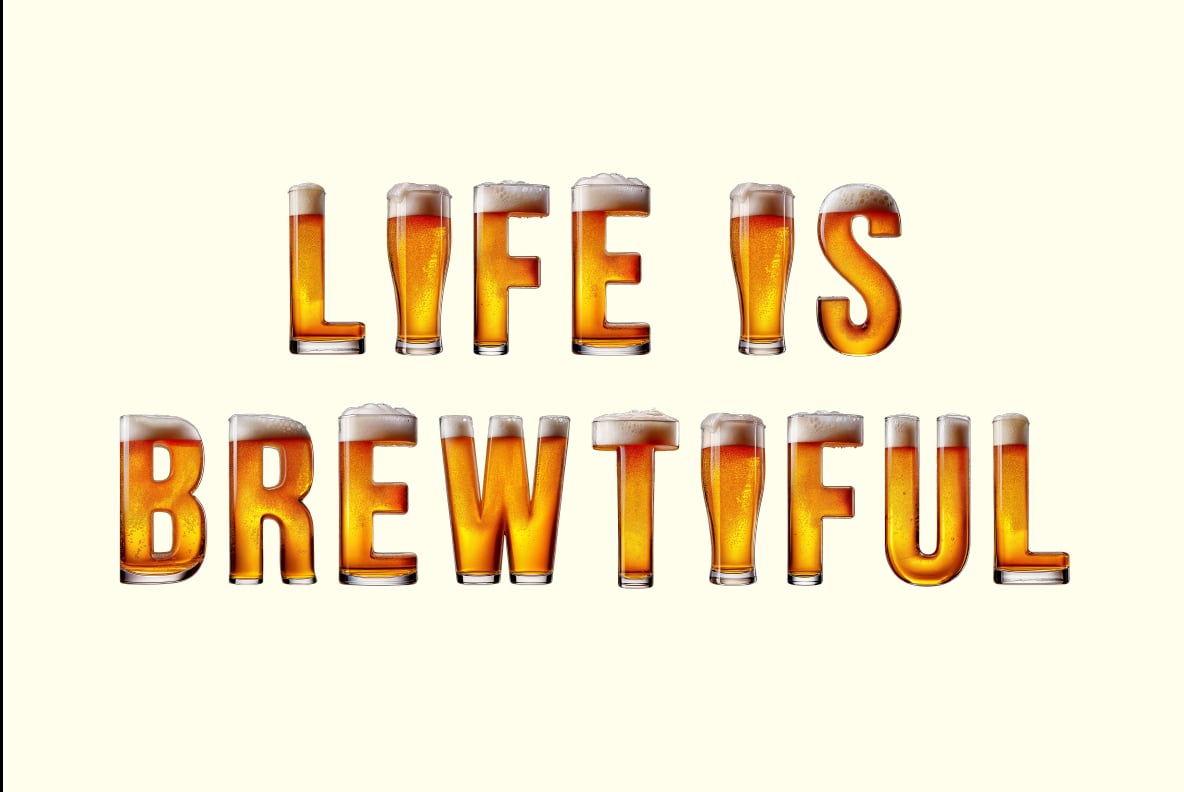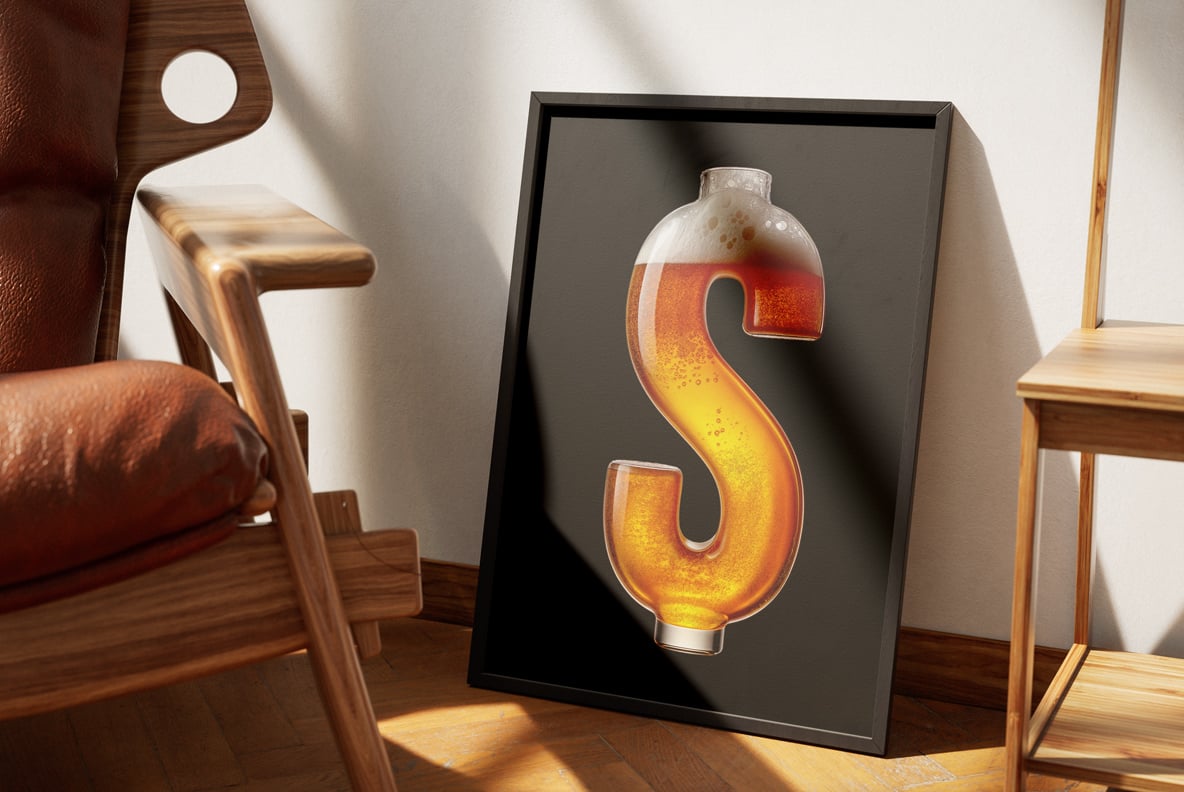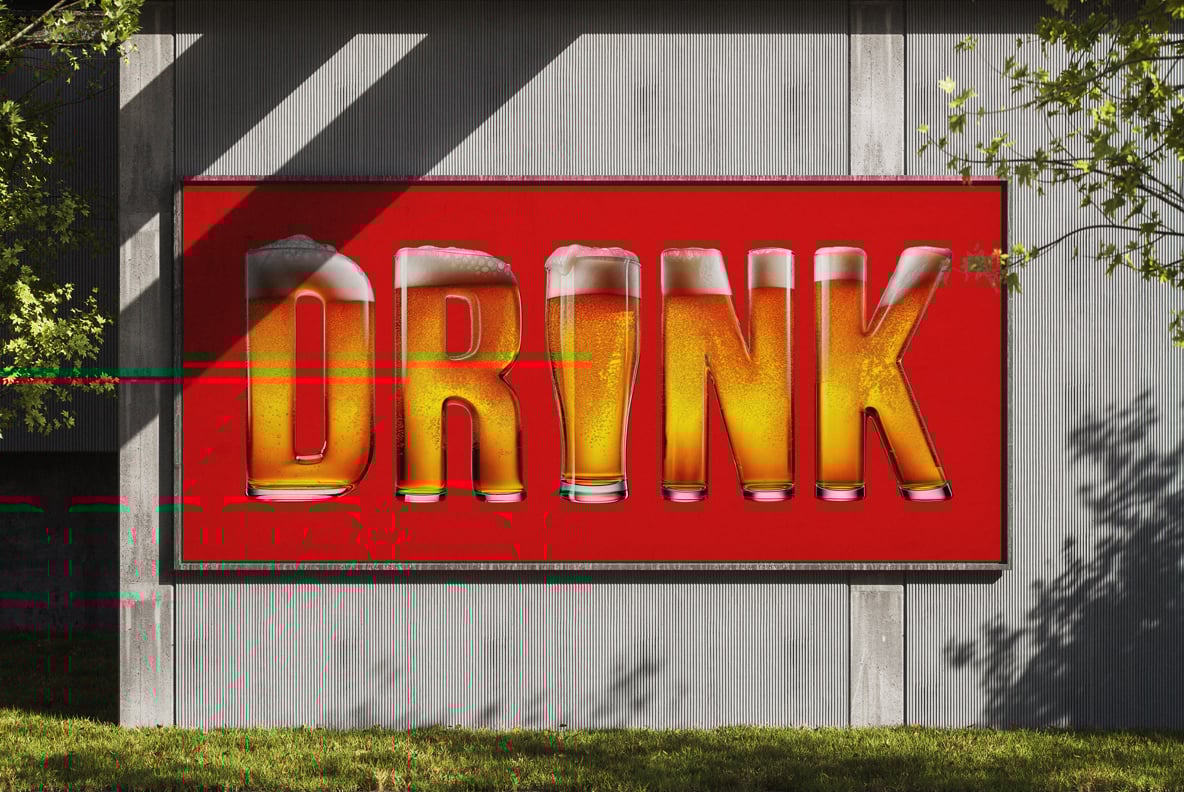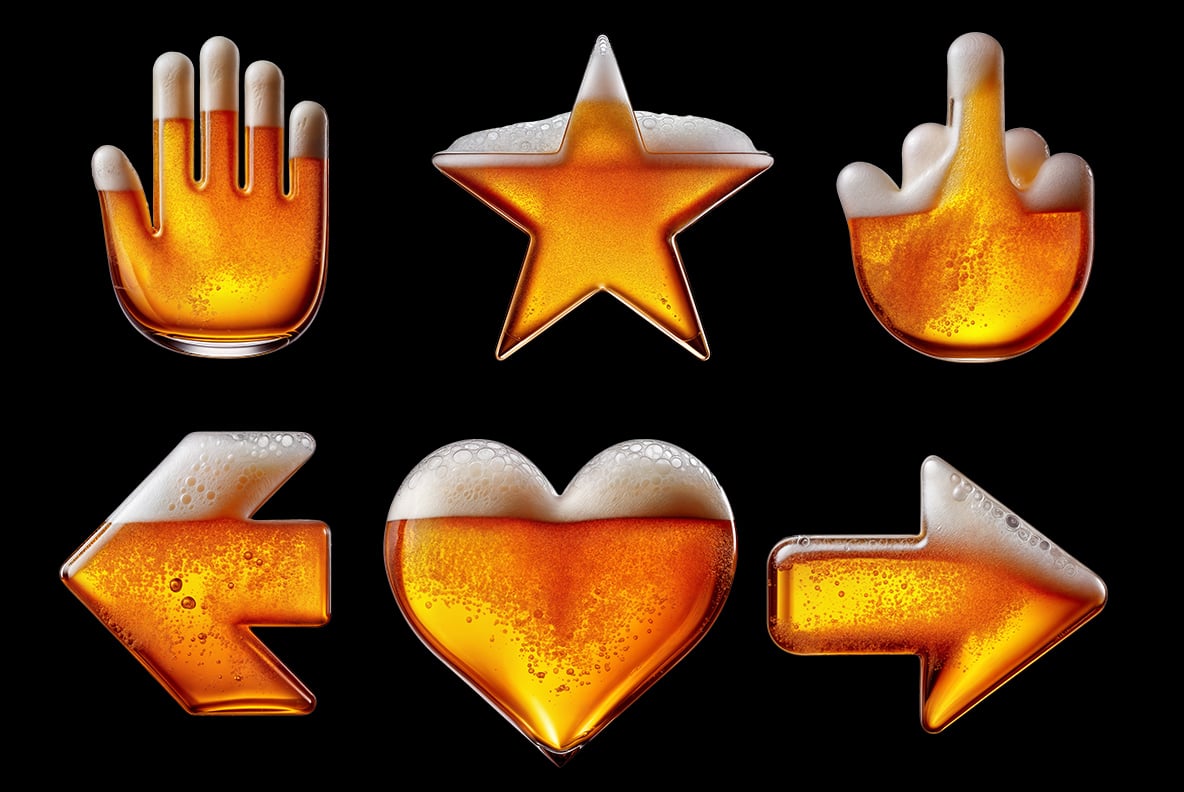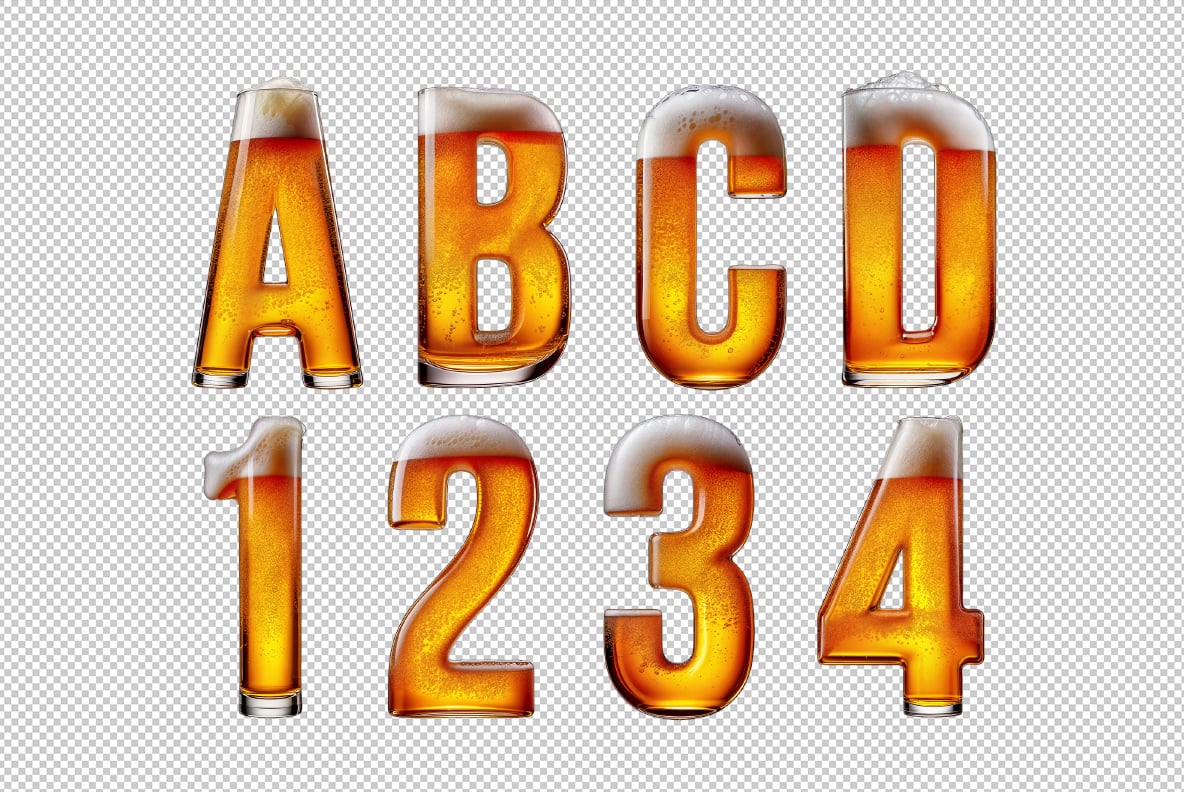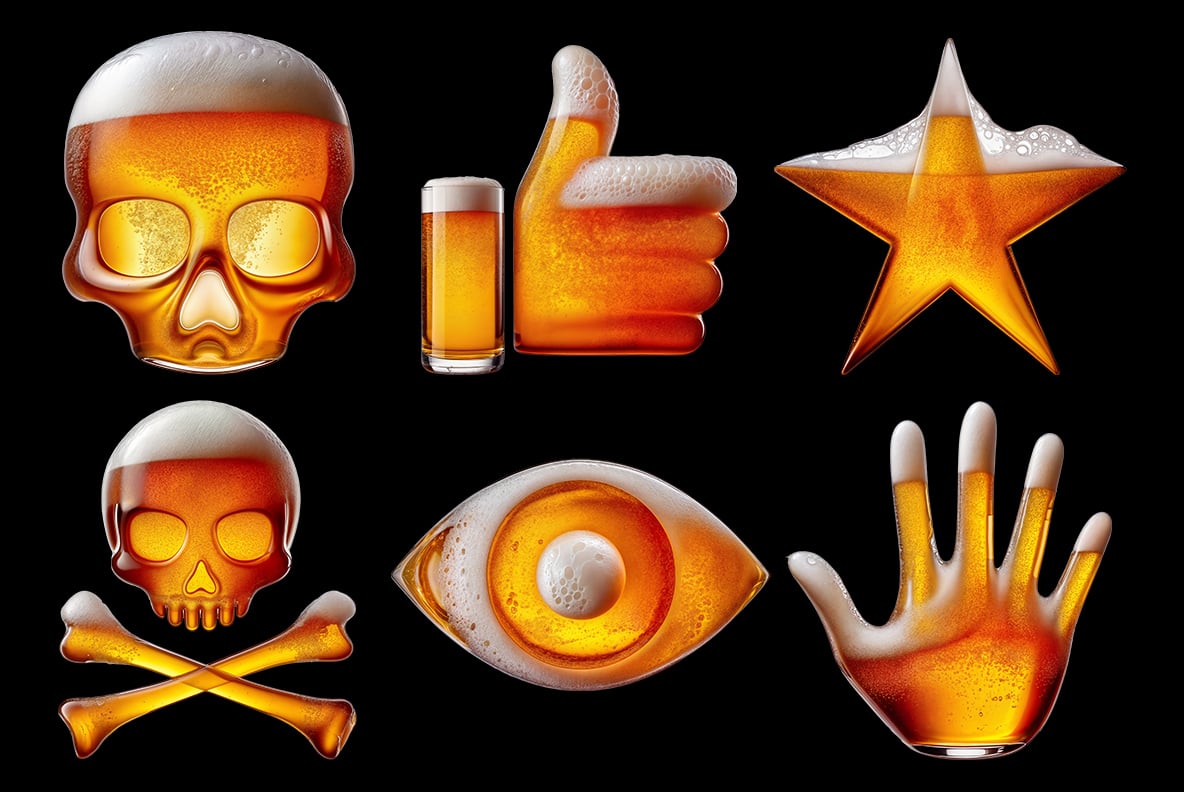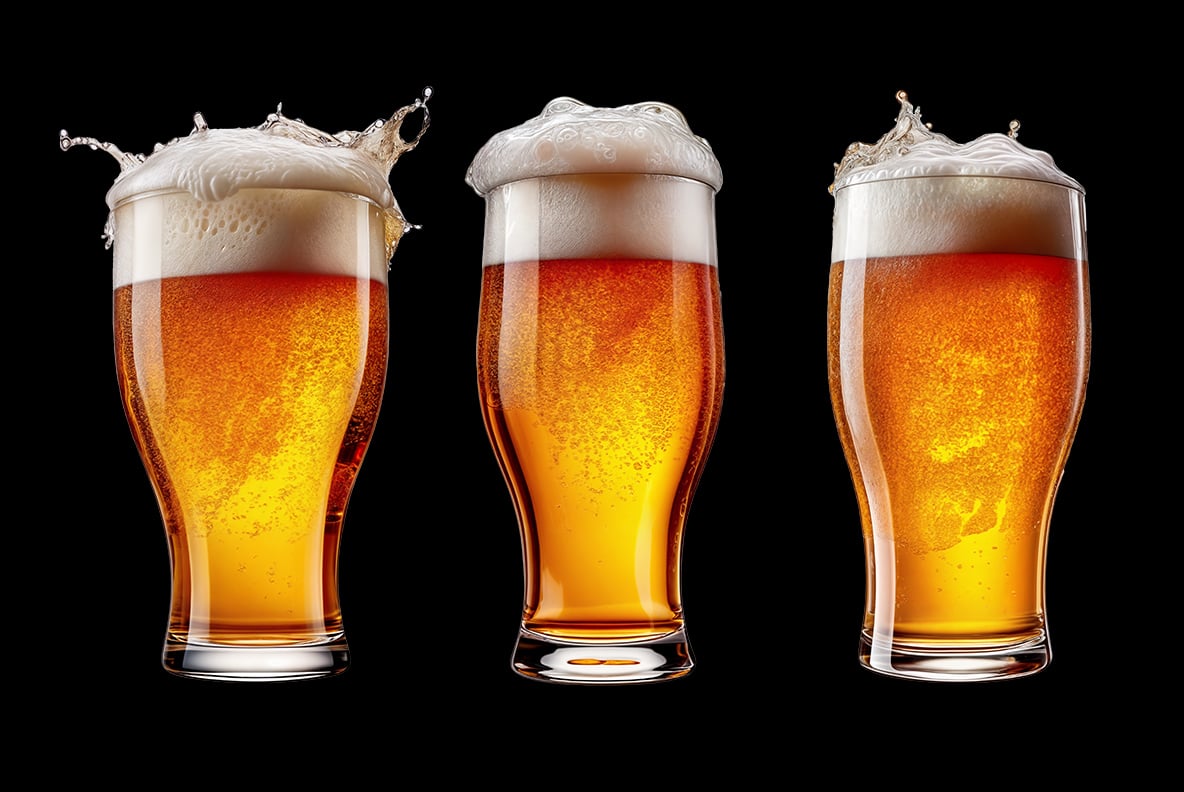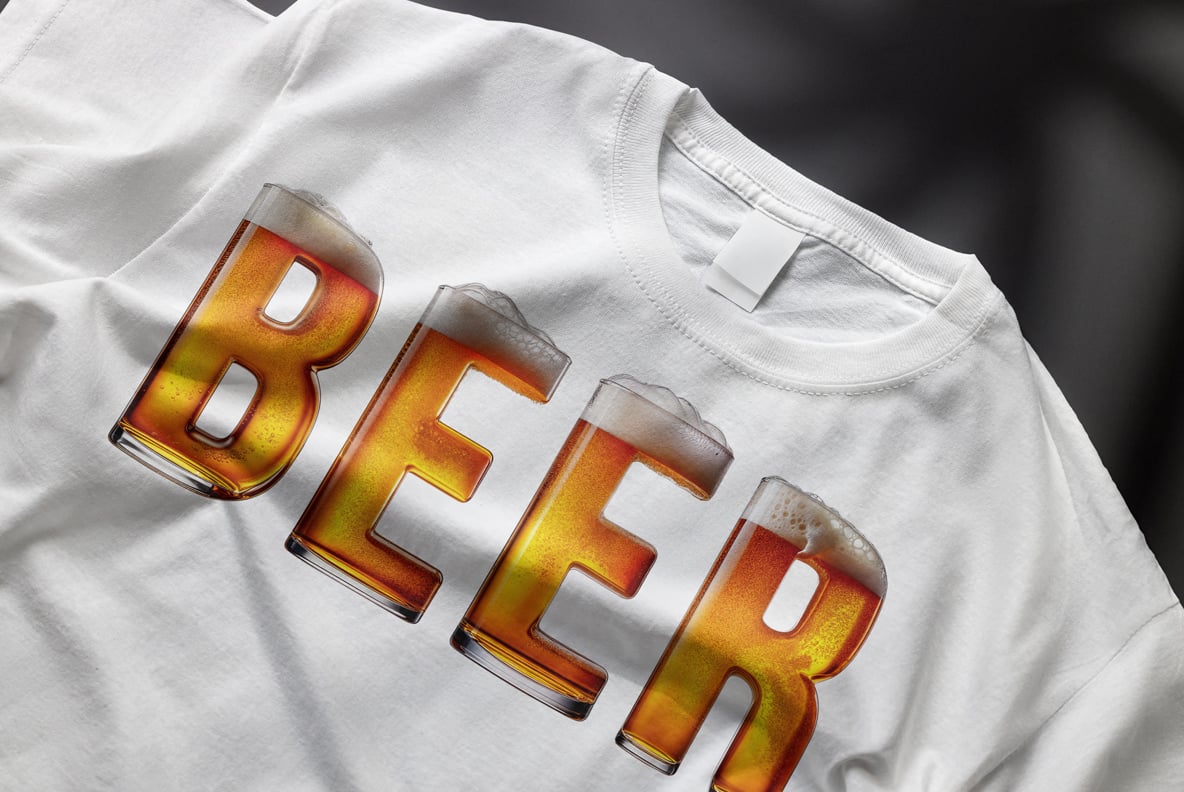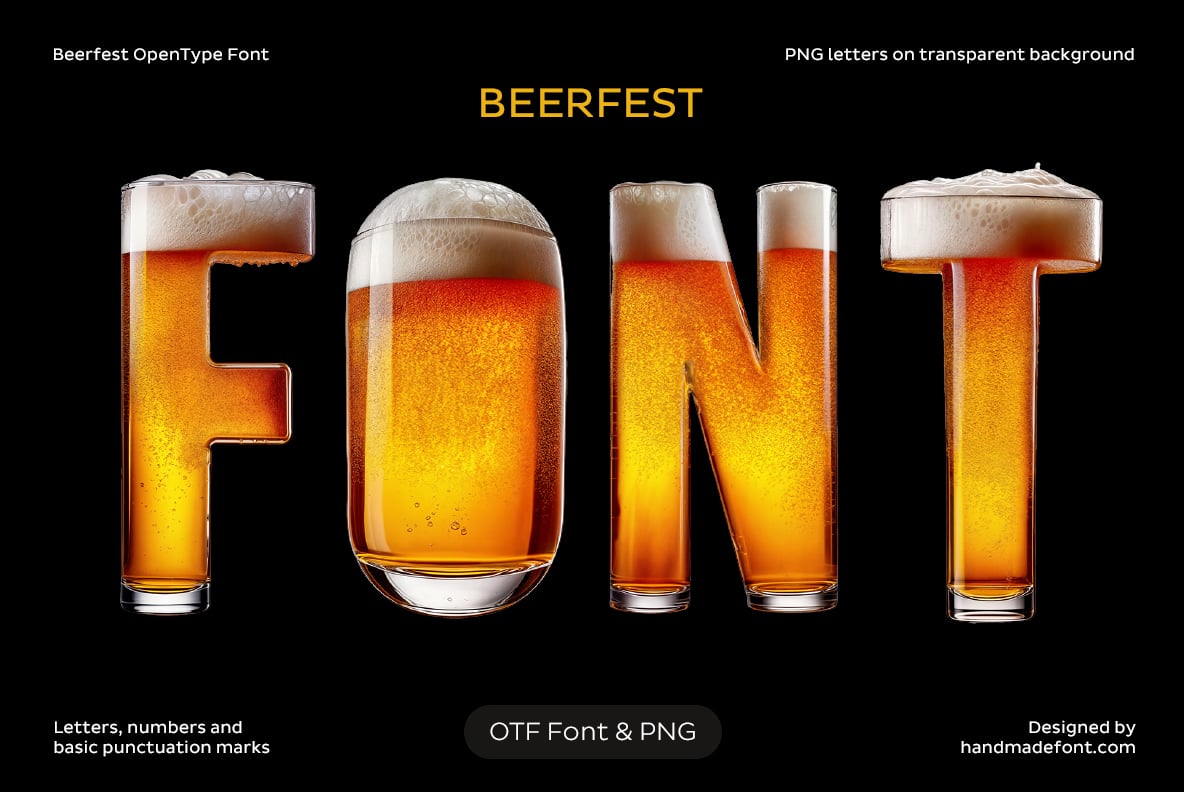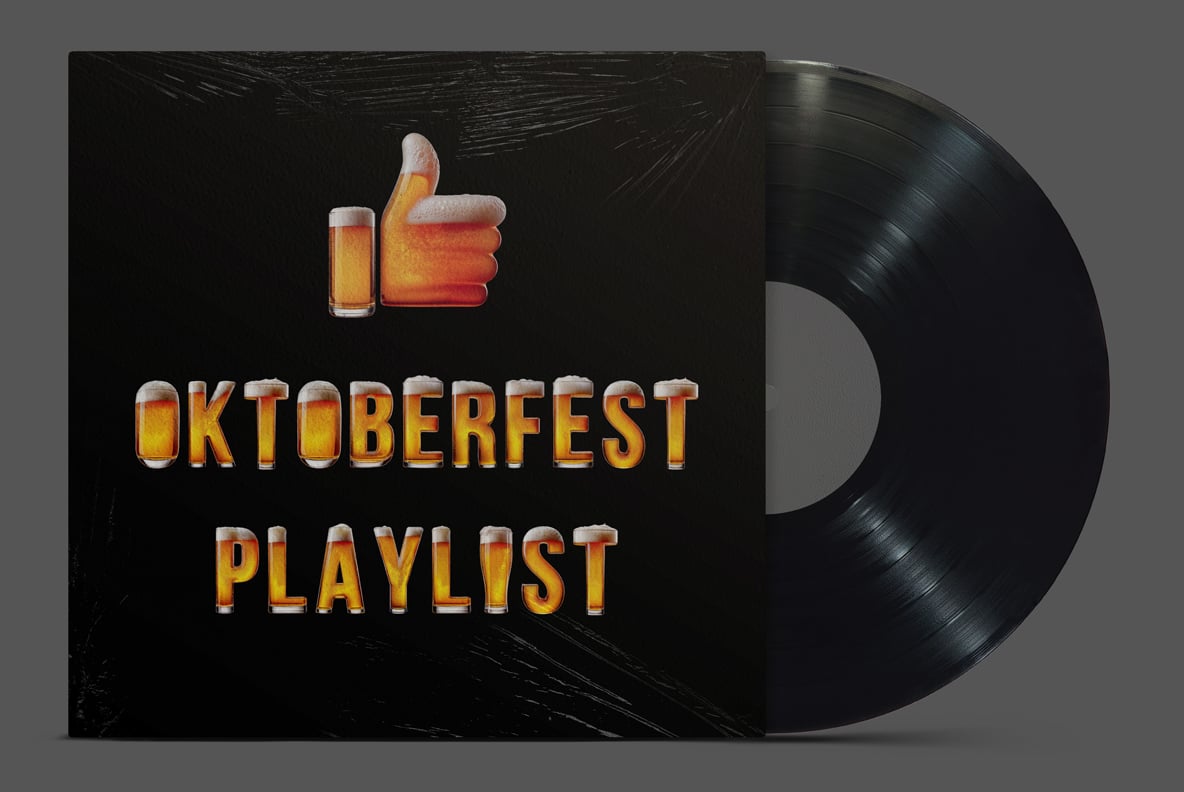
Beerfest Font
Beerfest Font is a bold and playful display typeface designed to look like it’s poured straight from the tap. Each letter resembles a tall glass of frothy beer, complete with golden amber hues, rising bubbles, and a foamy head on top. Perfect for Oktoberfest themes, craft beer labels, bar menus, and brewery branding, this font brings a fun and festive energy to any design. Its realistic beer-glass texture and three-dimensional look make it stand out in party posters, pub signage, or beverage advertising. Beerfest Font is where typography meets hops—ideal for anyone who loves type as much as they love beer.